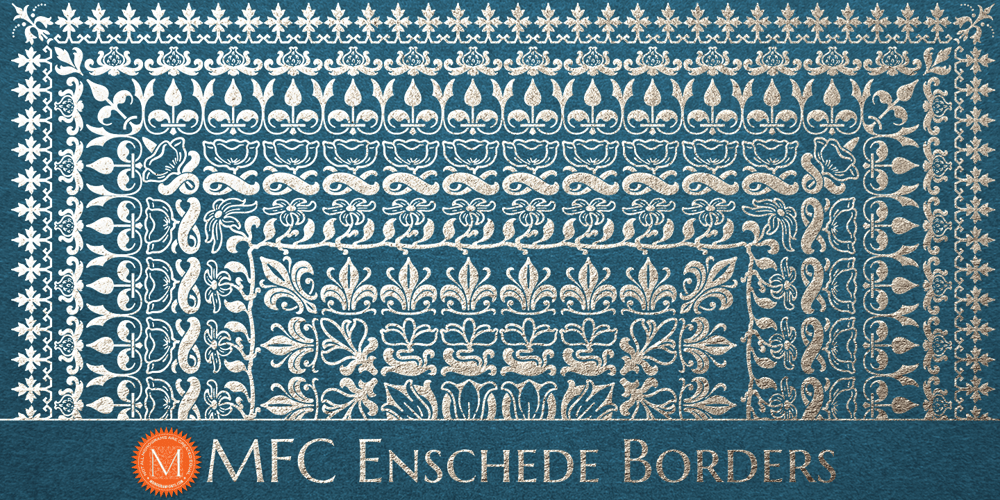
MFC Enschede Borders Font Family was designed by Brian J. Bonislawsky, James Lyles and published by Monogram Fonts Co.. MFC Enschede Borders contains 1 styles and family package options. The inspiration source for MFC Enschede Borders is a collection of floral border treatments from the 1904 “Ornamenten Hoofdlijsten en Sluitstukken” by Joh. Enschedé & Zonen, Haarlem. For the first time, this decorative border collection is available digitally. You can start with a new document or work on a new layer within an existing document. Select MFC Enschede Borders from the font menu. (Some users may have font previewing enabled in the font menu which will cause the font name to appear as border elements, disable this option in order to choose the name) Make certain that the point size of the font is the same as the leading being applied to the font so the borders will meet up properly. While we’ve adjusted this within the font, your program may override these settings. For instance a 12 point font should have 12 points of leading. Download and view the MFC Enschede Borders Guidebook if you would like to learn a little more.